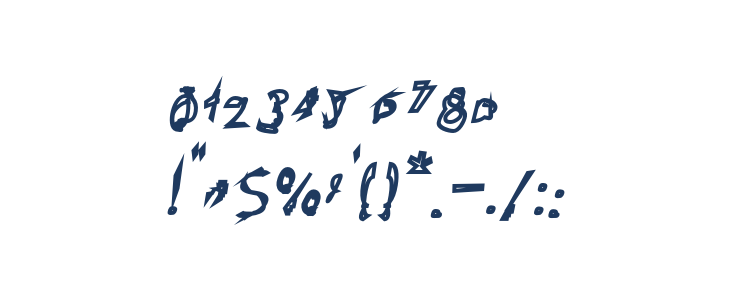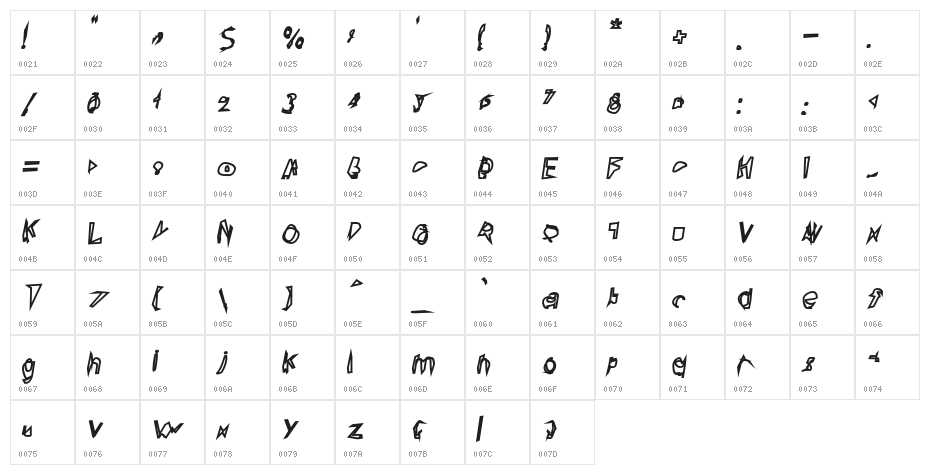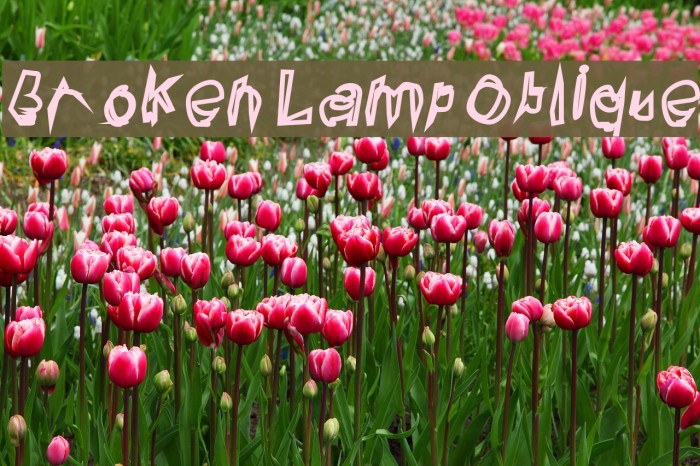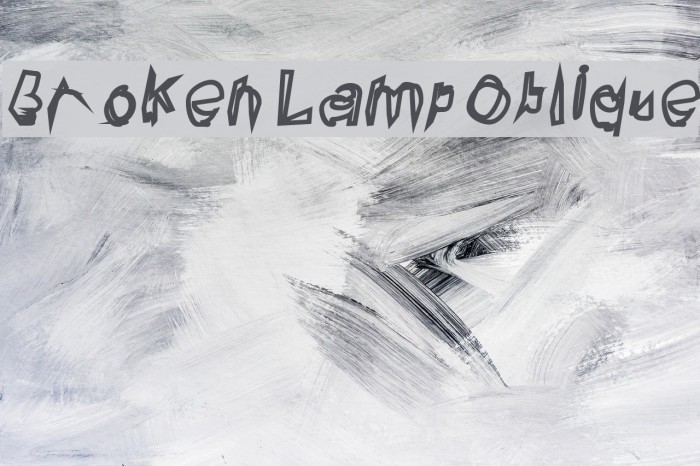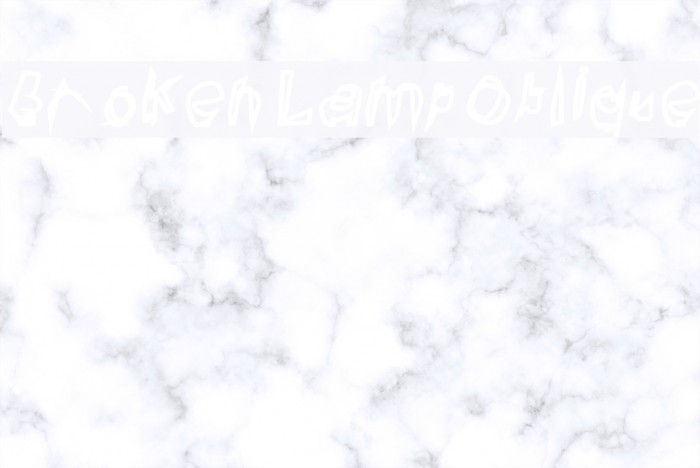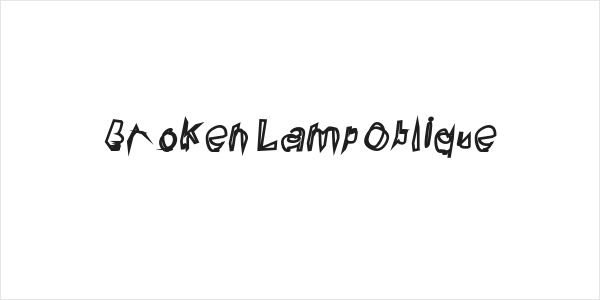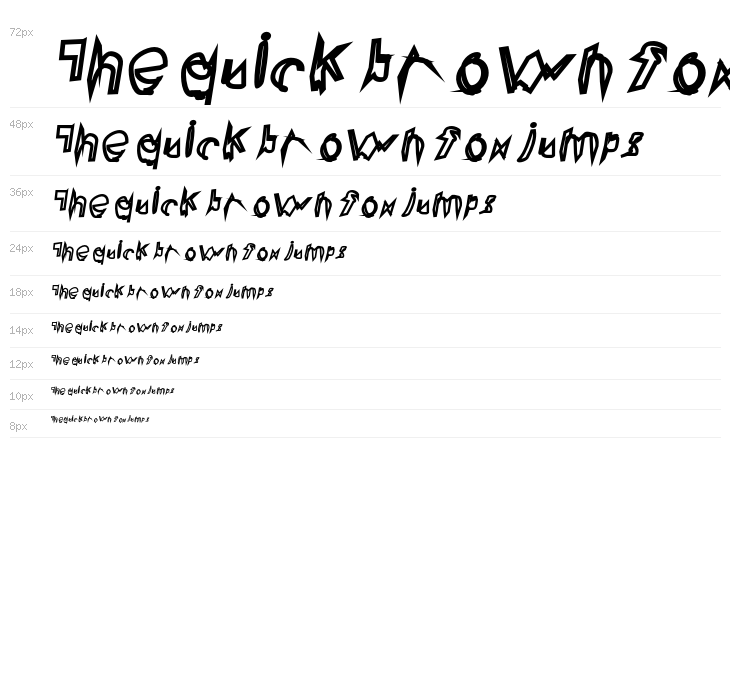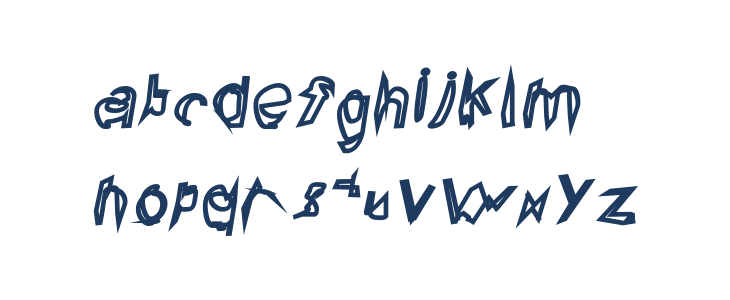
Broken Lamp Oblique Font
Broken Lamp Oblique Description
This font features a highly stylized and angular design, characterized by sharp edges and irregular shapes. The letters appear fragmented and dynamic, giving an impression of movement and energy. The uppercase and lowercase letters maintain a consistent theme of broken and jagged lines, creating a sense of chaos and unpredictability. Numbers and special characters follow the same design principles, ensuring uniformity across the font. The overall appearance is bold and striking, making it suitable for attention-grabbing designs.
Proposed ProjectsIdeal for edgy posters, album covers, and modern art projects that require a bold statement.